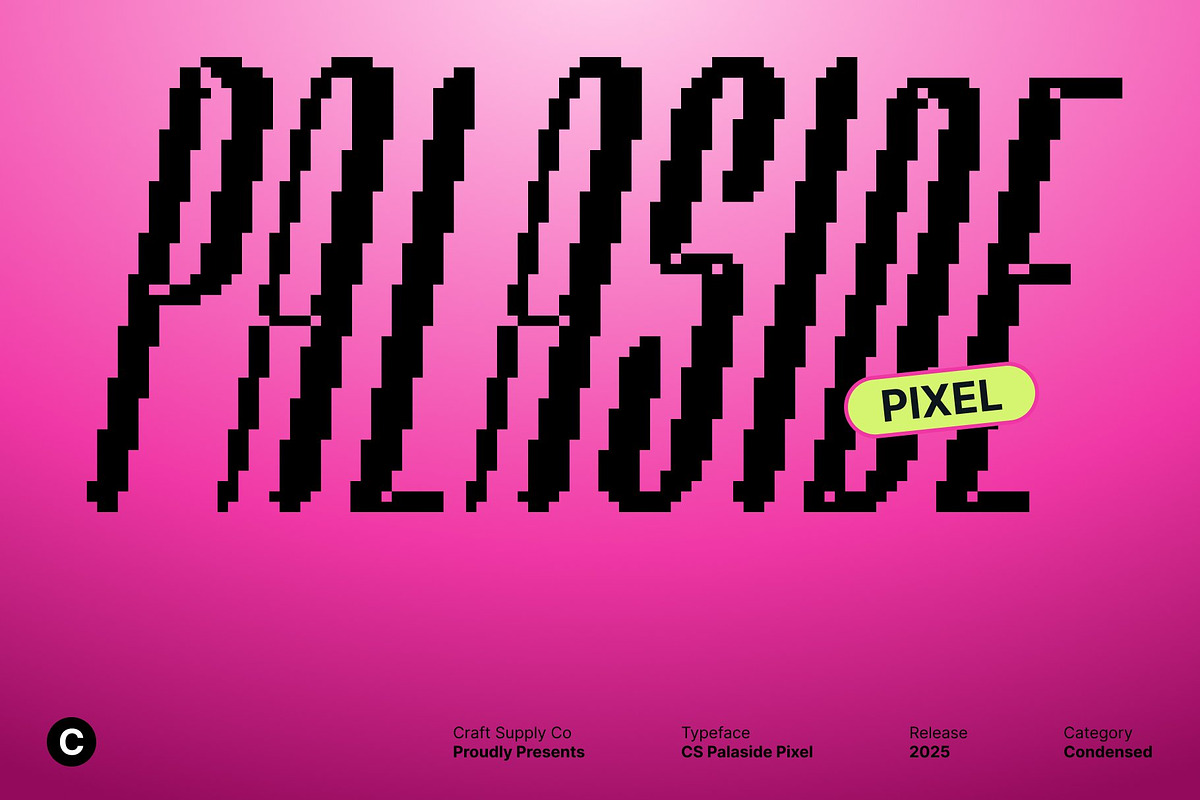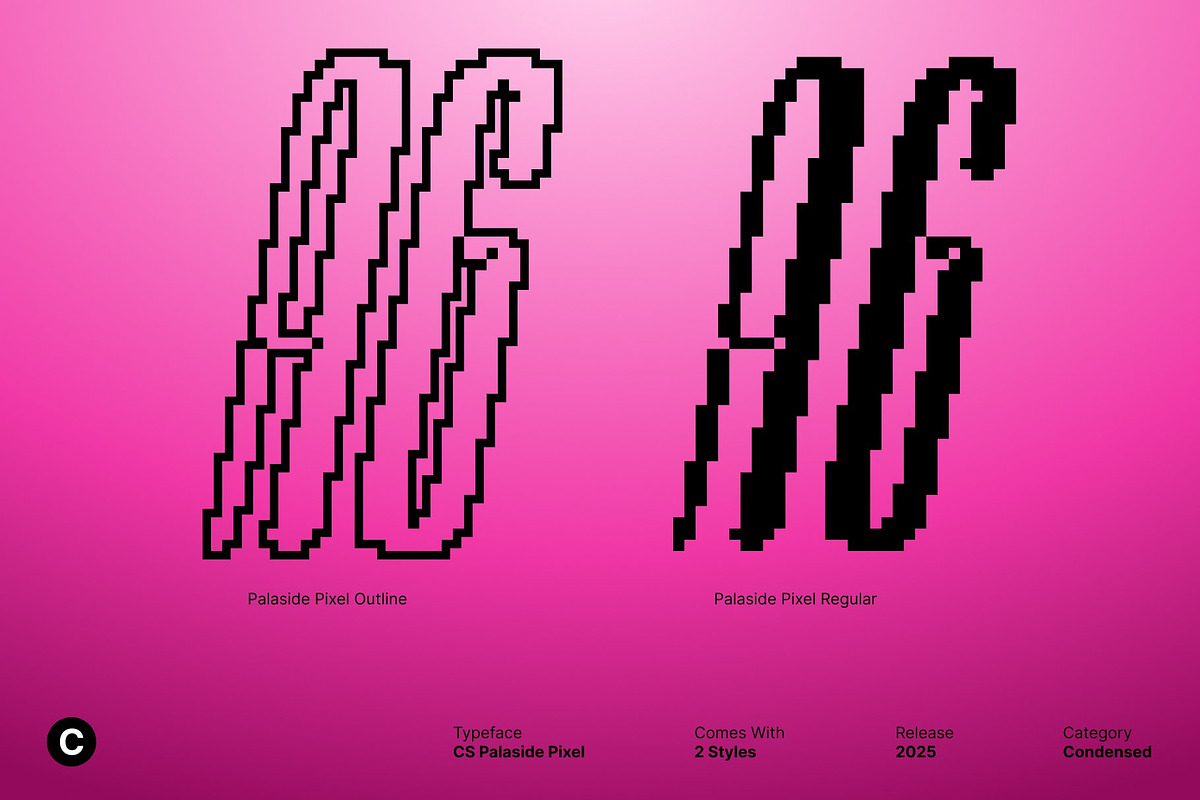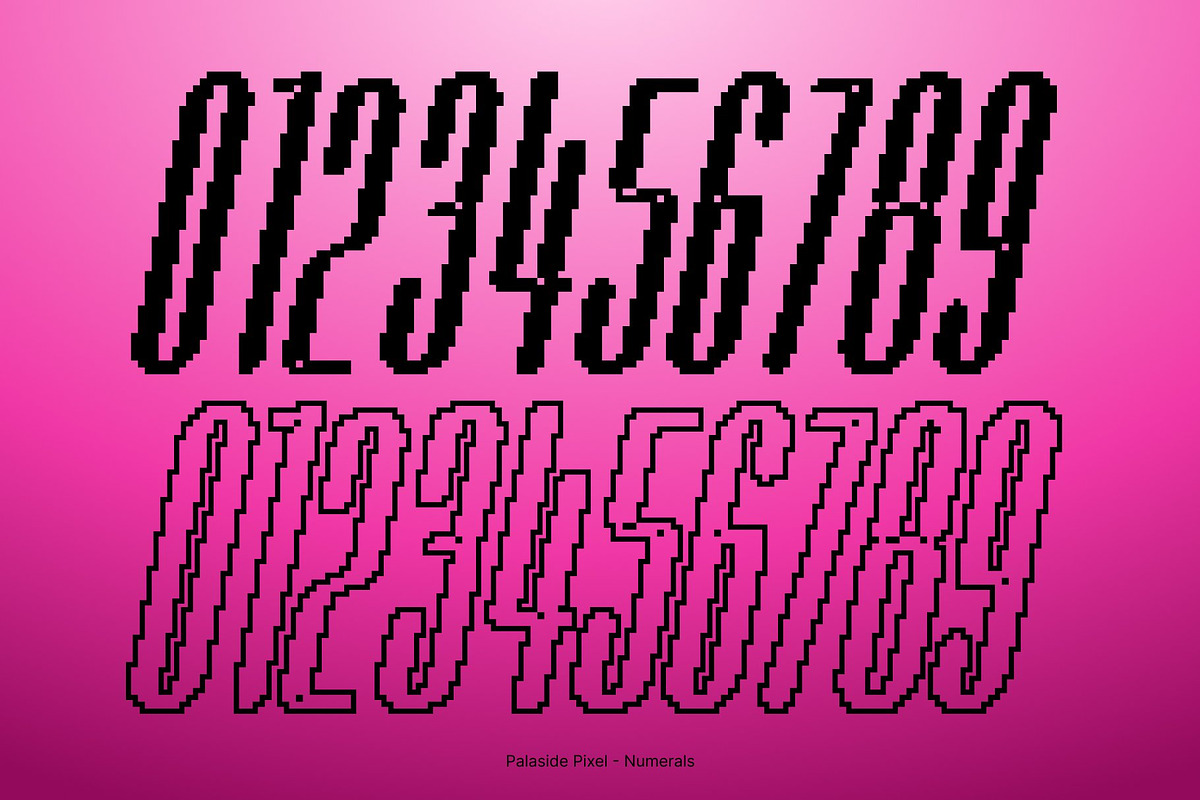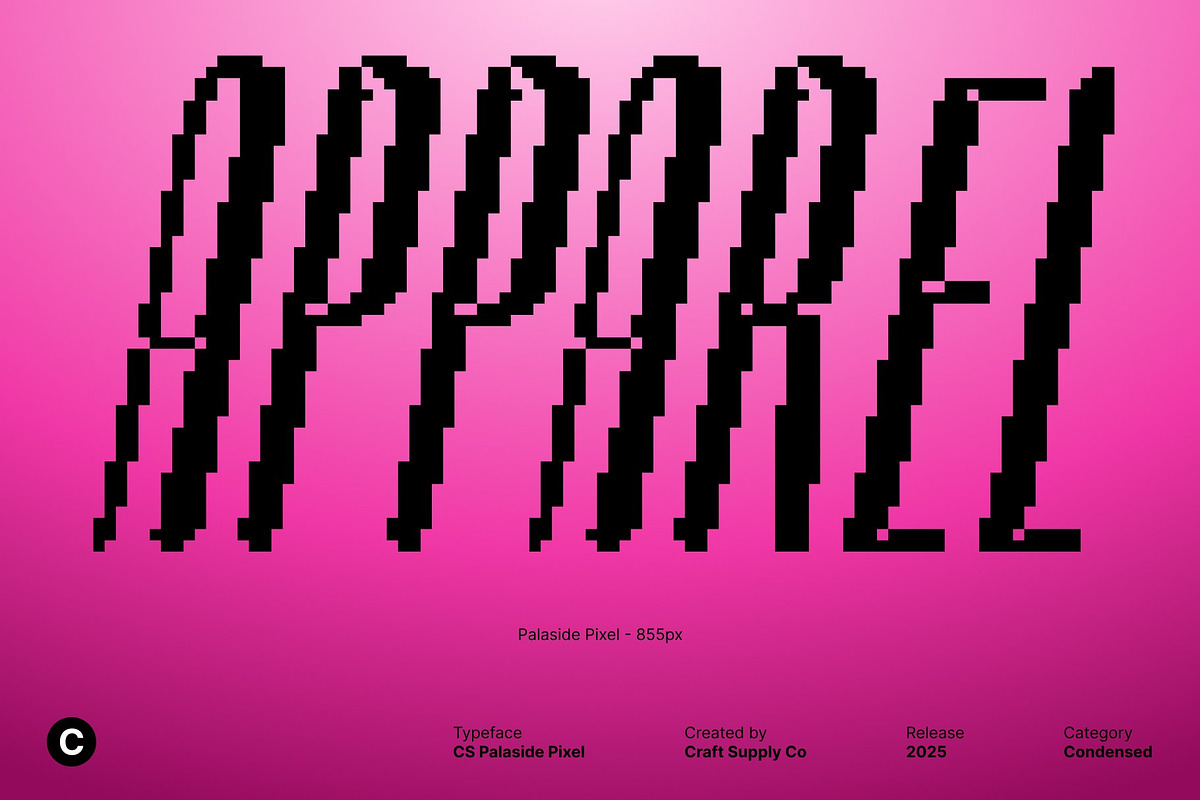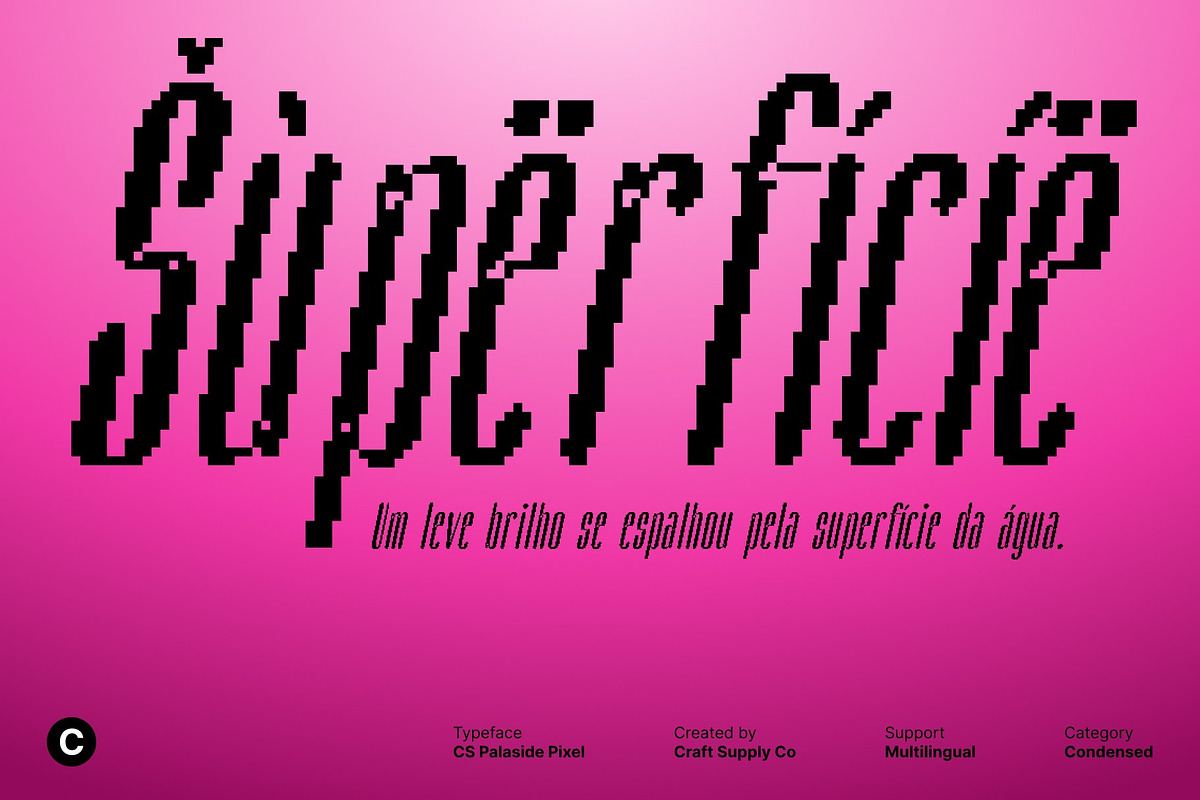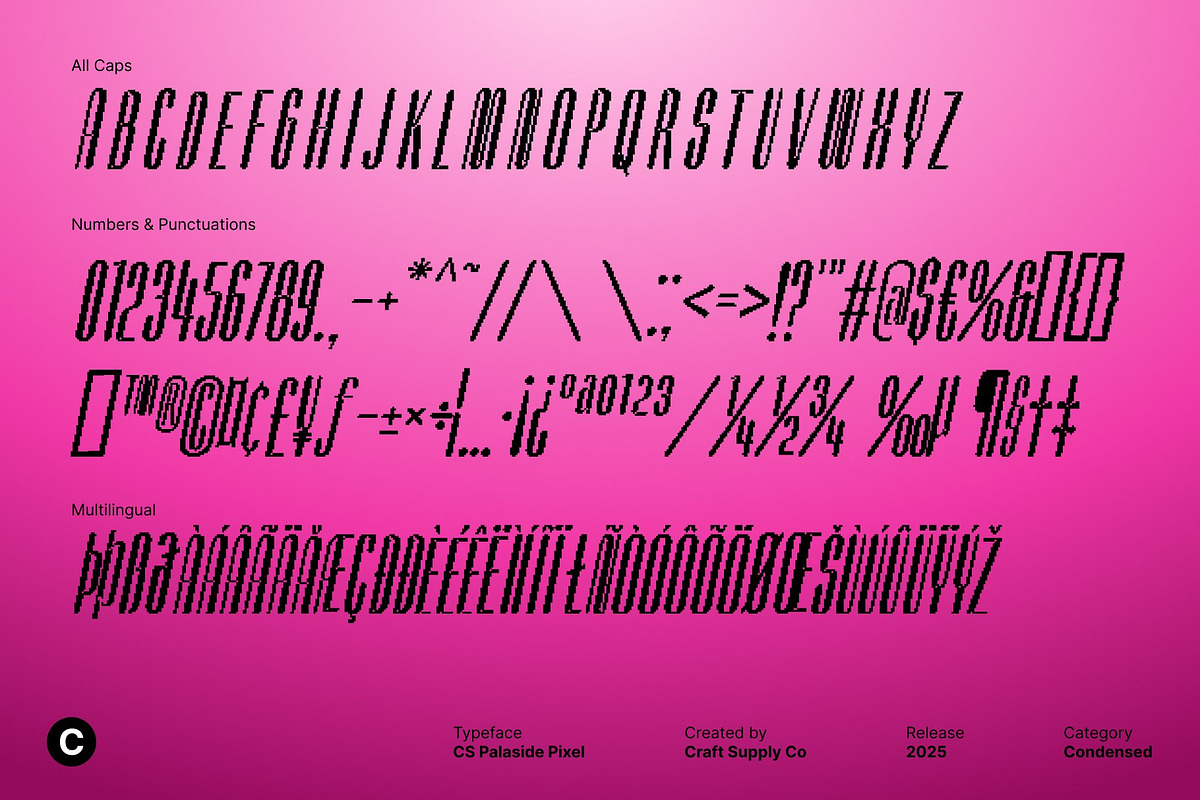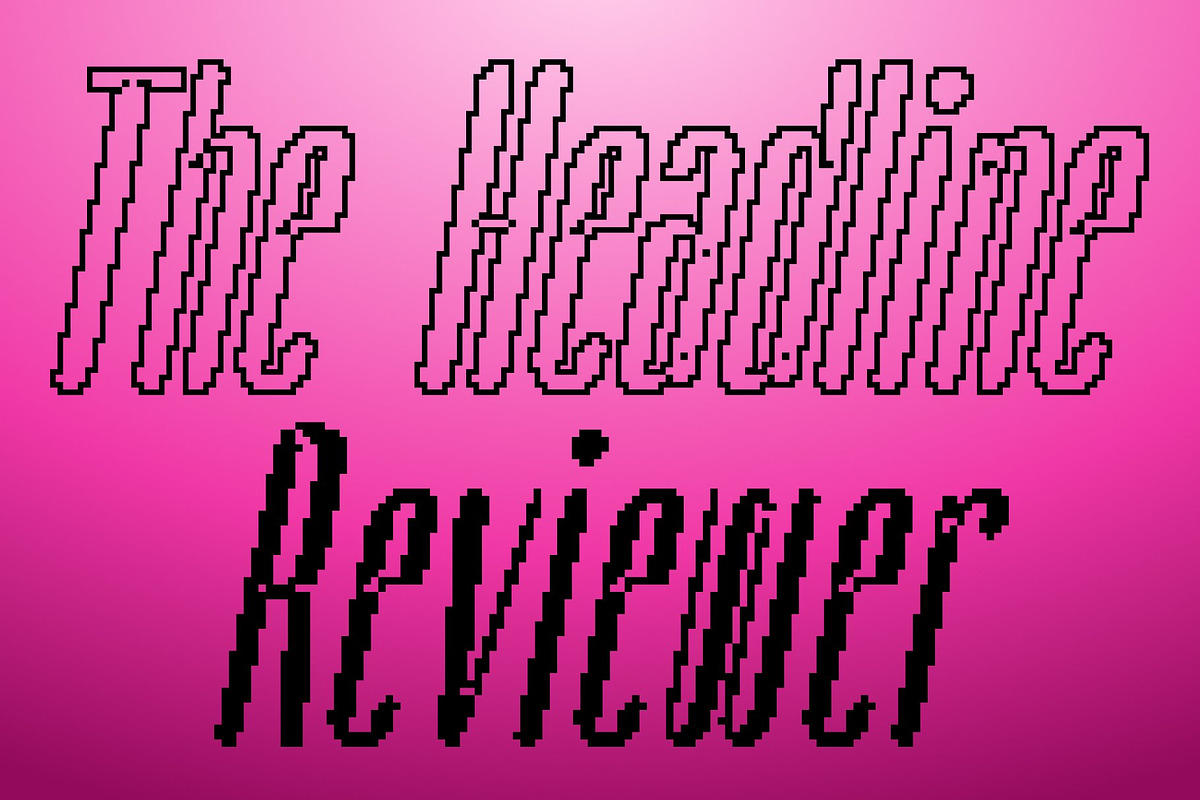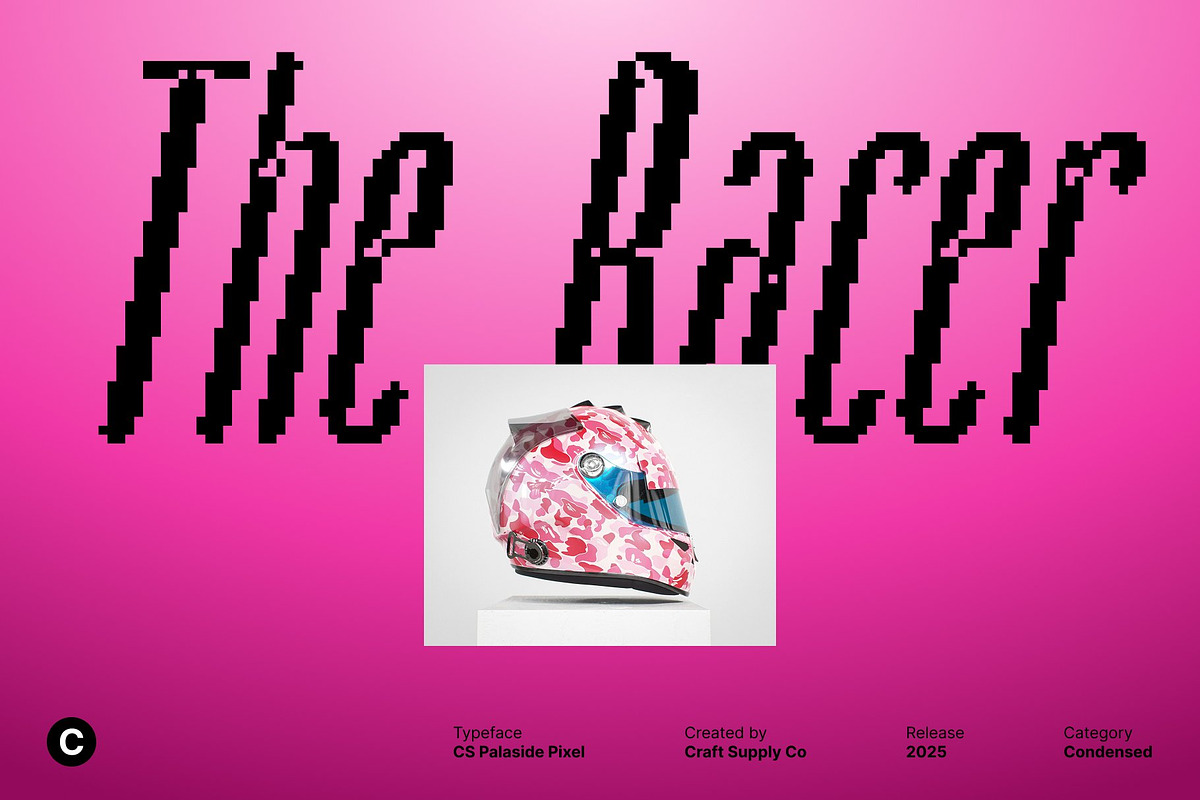
Palaside Pixel
Palaside Pixel – Condensed Sans Serif Display Font with 8-Bit Pixel Style
Compact and Powerful for Maximum Visual Impact This is a condensed sans serif display font designed to make a strong statement even in tight spaces. Its narrow, streamlined letterforms maximize space efficiency while delivering bold, eye-catching typography, making it perfect for headlines, posters, and branding projects that demand attention.
Modern Pixelated Design for a Futuristic Edge Featuring a distinctive pixel-inspired style, this font merges modern sans serif precision with retro 8-bit aesthetics. The pixel detailing adds a digital, tech-forward personality, giving your text a visually striking, contemporary, and playful feel that stands out in any design.
Condensed Structure for Clarity and Boldness The compact design ensures that every letter remains legible and impactful, even at small sizes or in dense layouts. This makes this font highly versatile, ideal for designs where space is limited but bold visual presence is required.
Perfect for Headlines, Posters, and Modern Pixel Projects This font excels in creative projects that need modern, pixelated flair with strong readability. Use it for digital branding, posters, gaming visuals, or editorial layouts to deliver an 8-bit inspired, contemporary, and eye-catching style. Its condensed form, sharp lines, and pixel detailing ensure your design captures attention with precision and digital energy.
- Palaside Pixel Regular
- Palaside Pixel Outline